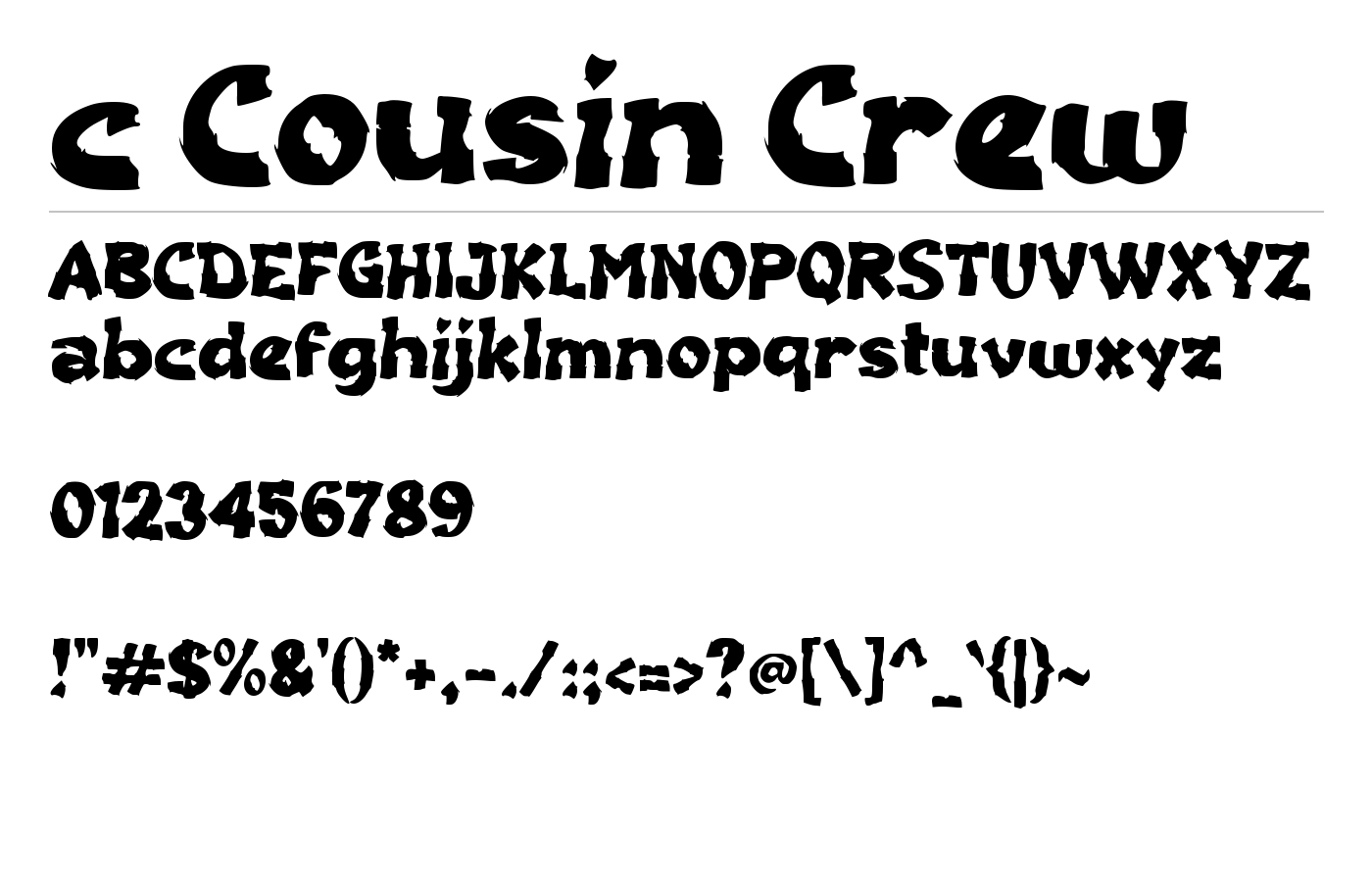
Cousin Crew is a bold, playful display font with a rough, hand-crafted texture that gives it a strong, informal personality. Its chunky letterforms and irregular edges create a lively, dynamic feel, making it perfect for eye-catching headlines, posters, and creative branding aimed at a fun, youthful audience. This font works well where a unique, energetic style is needed to stand out and convey a sense of spirited individuality.
c Cousin Crew Font
About c Cousin Crew Font